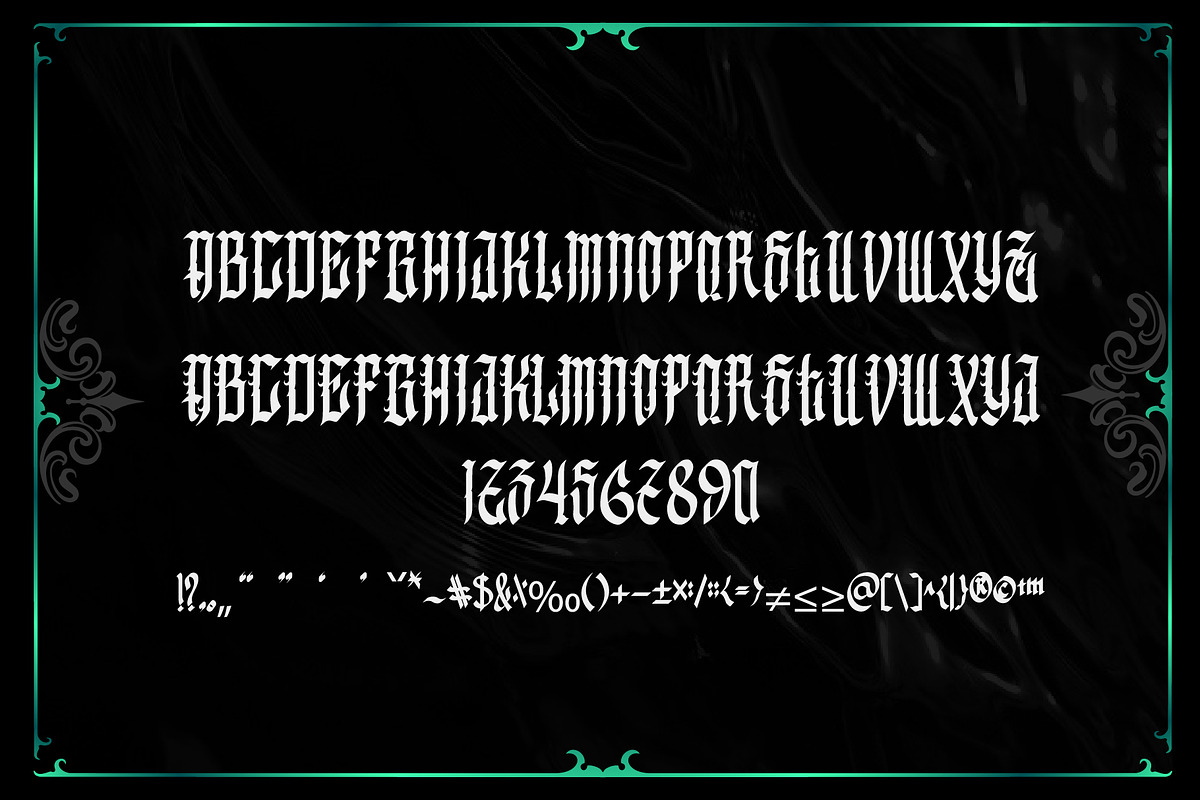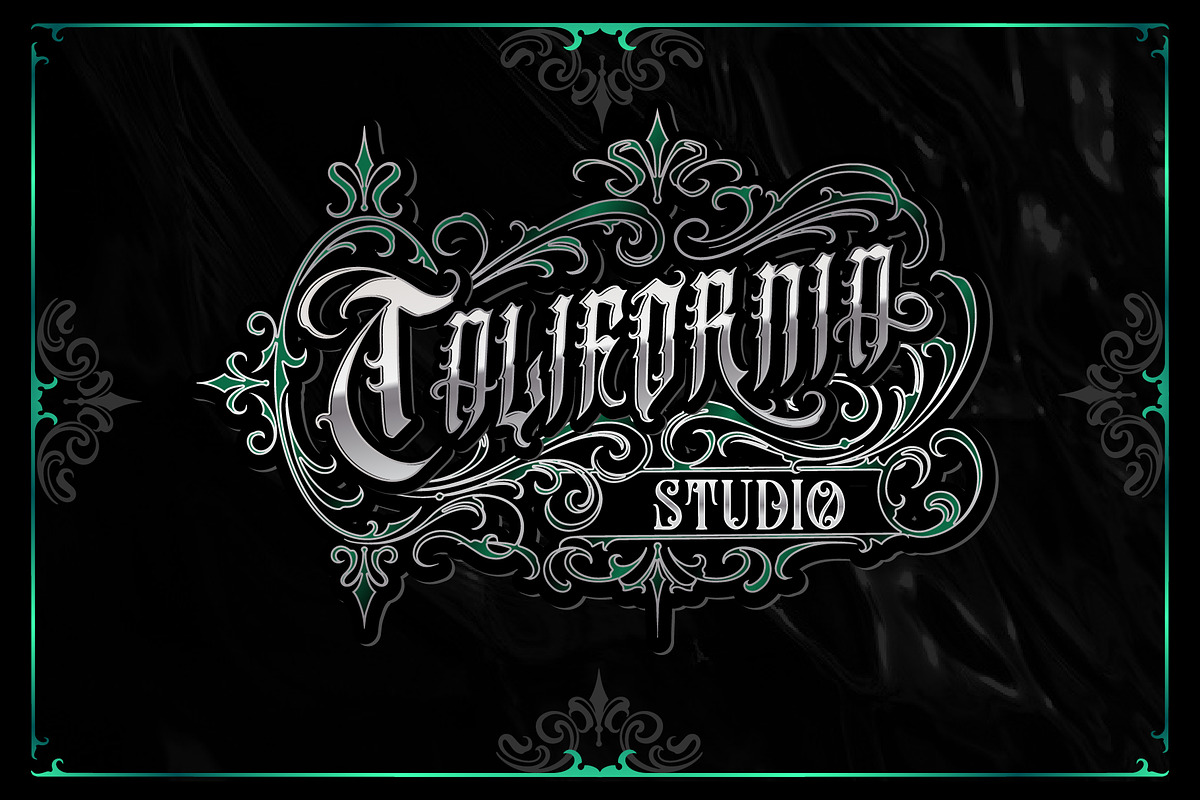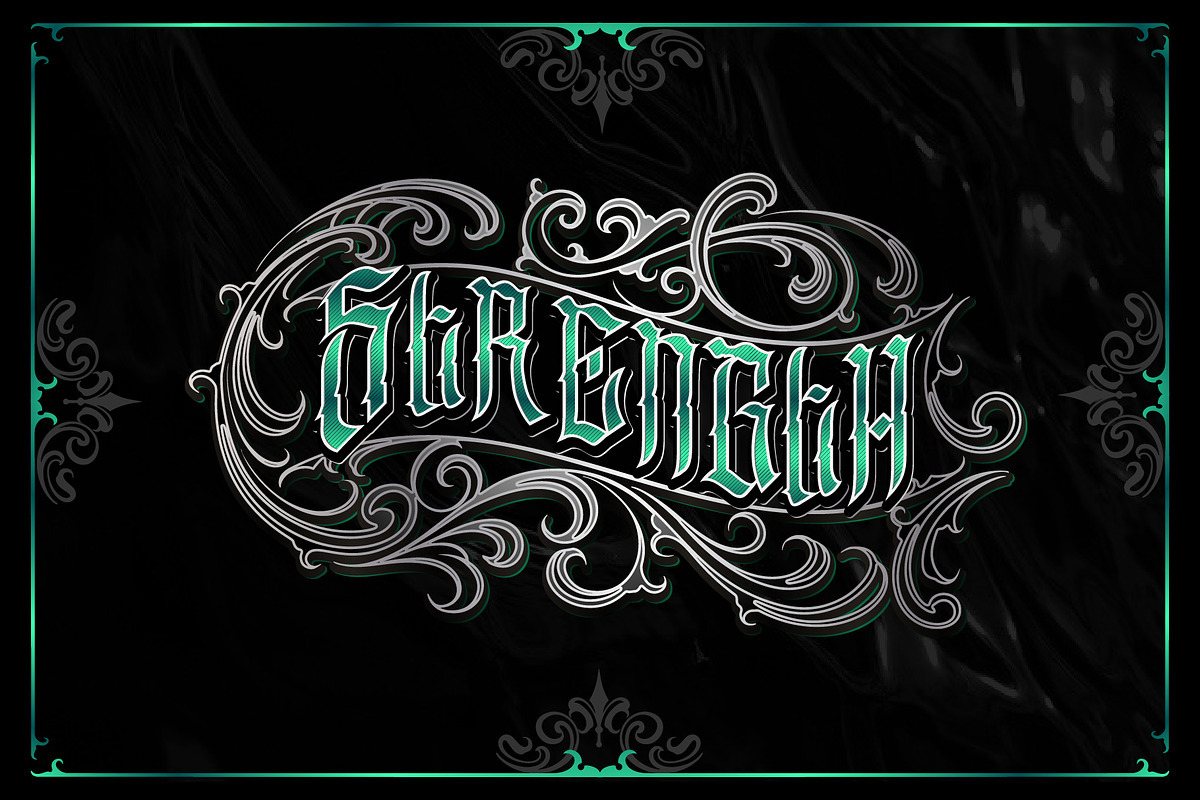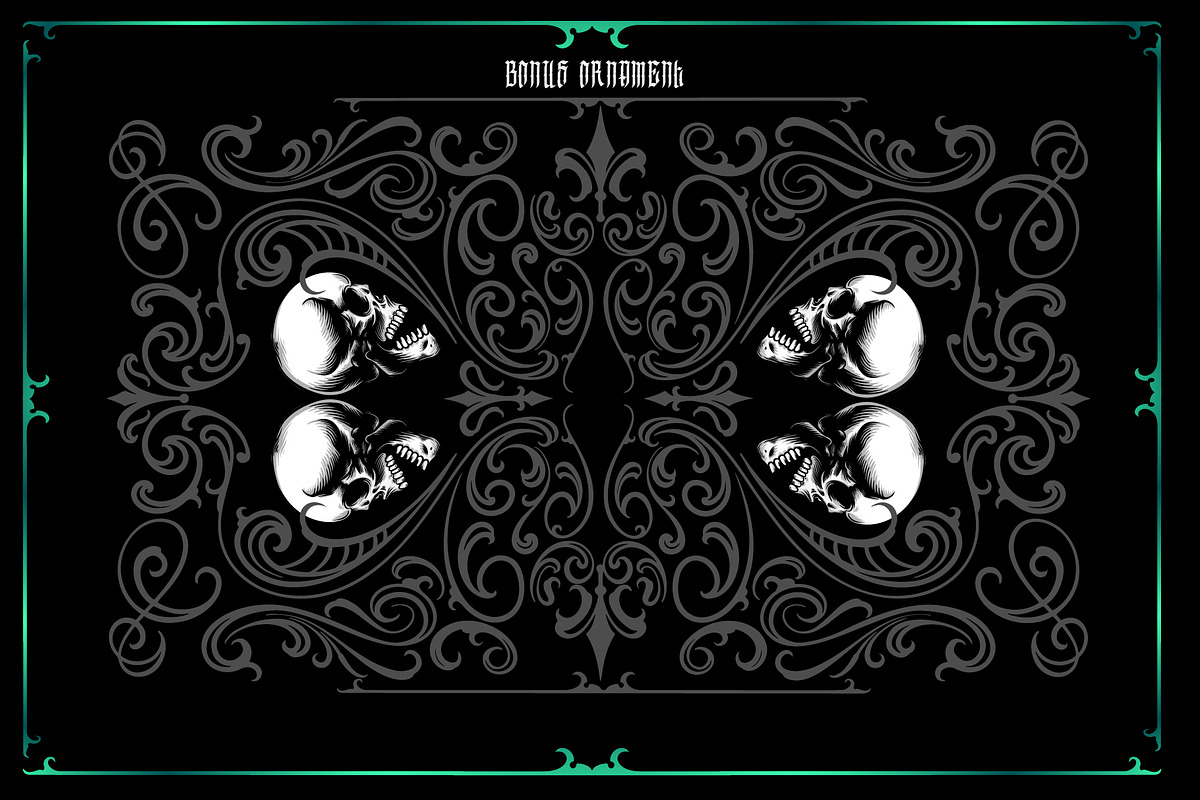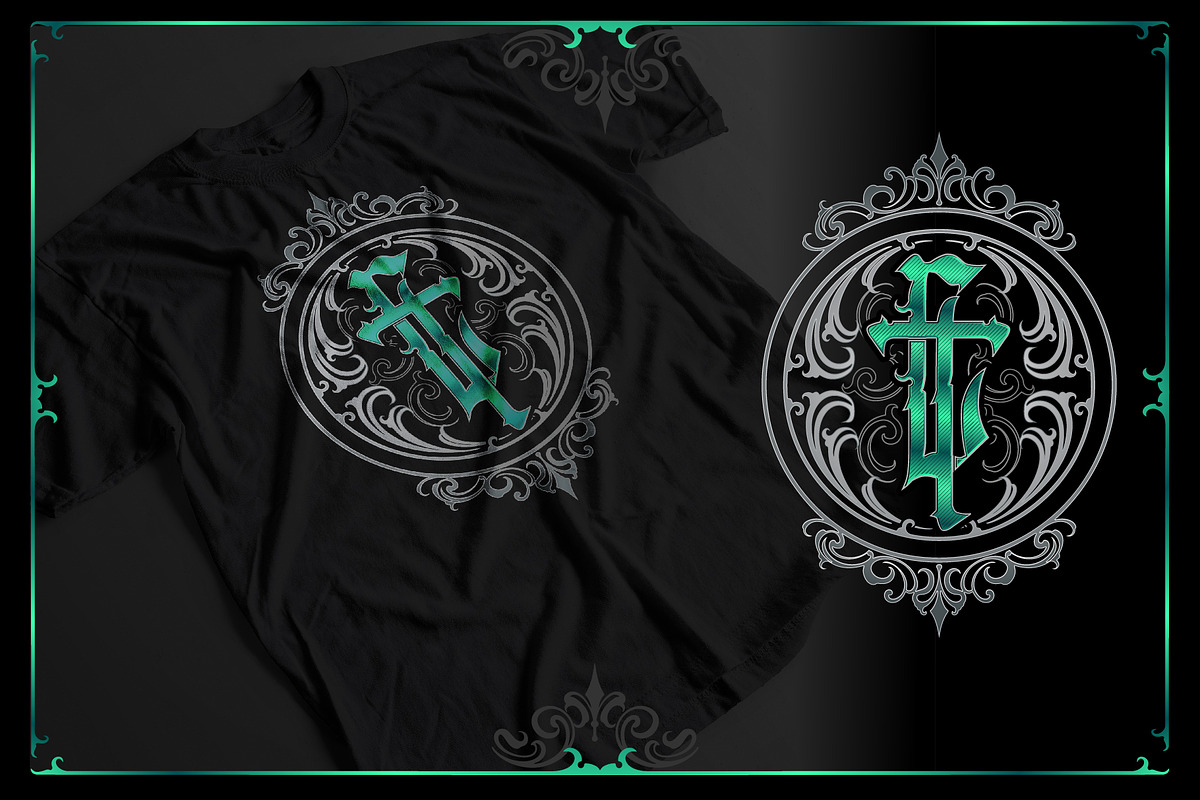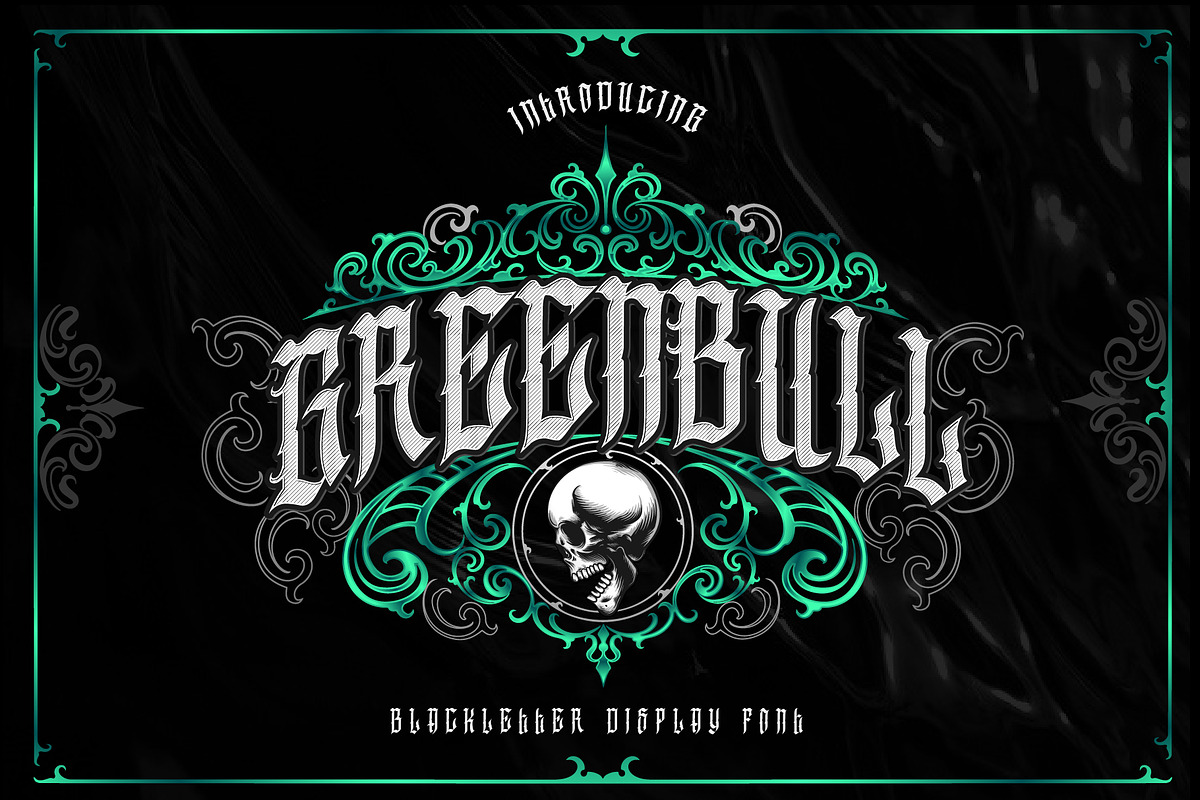
GreenBull + Decorative bonus
Dansdesign Proudly present our new product GreenBull + Decorative bonus This font is made with references to various letters that I combine and design with my style.
GreenBull + Decorative bonus are great and usefull for product logo, poster title, headline, packaging, badge, wedding card logo, clothing brand logo,Vintage design and much more